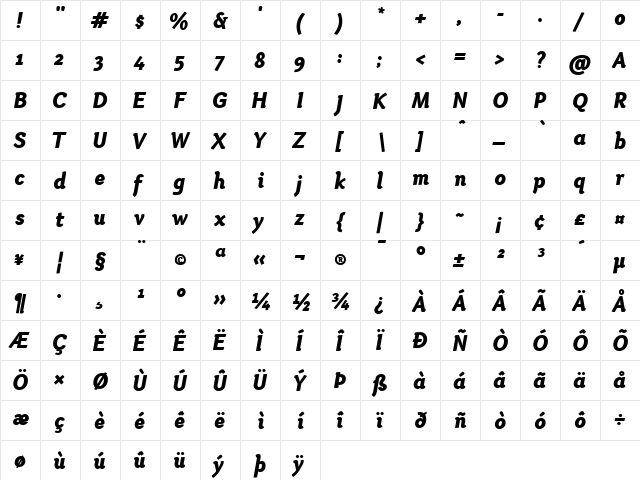
Otari Heavy Italic
Design Context for Otari Typeface
Otari offers clean, dependable letterforms without strong stylistic allegiance, making it a practical choice for designers who need flexibility. The dynamic lean of this cut emphasises speed and emphasis in any layout.